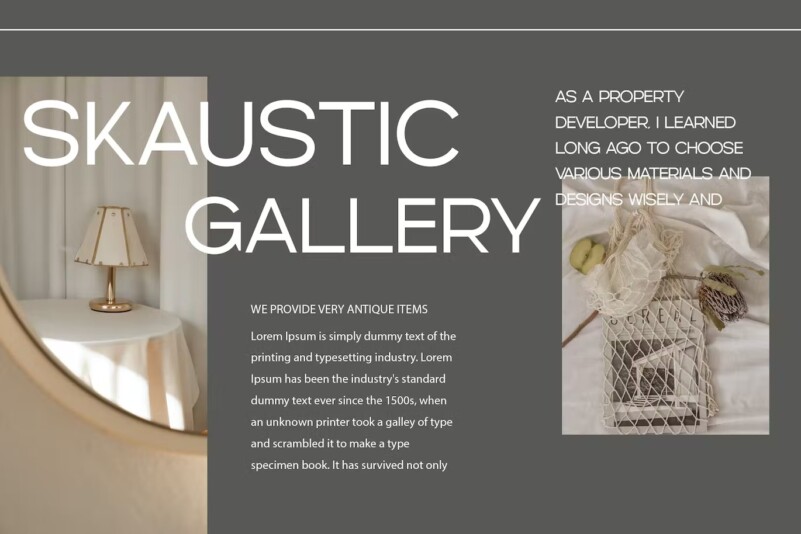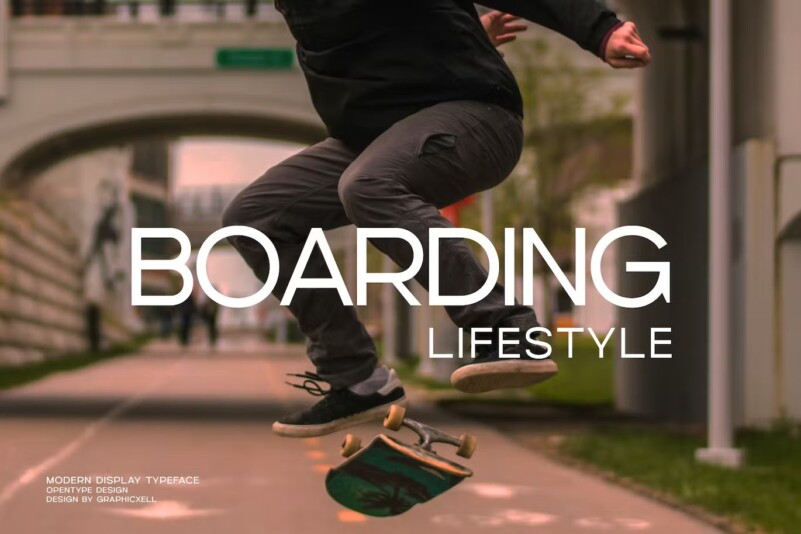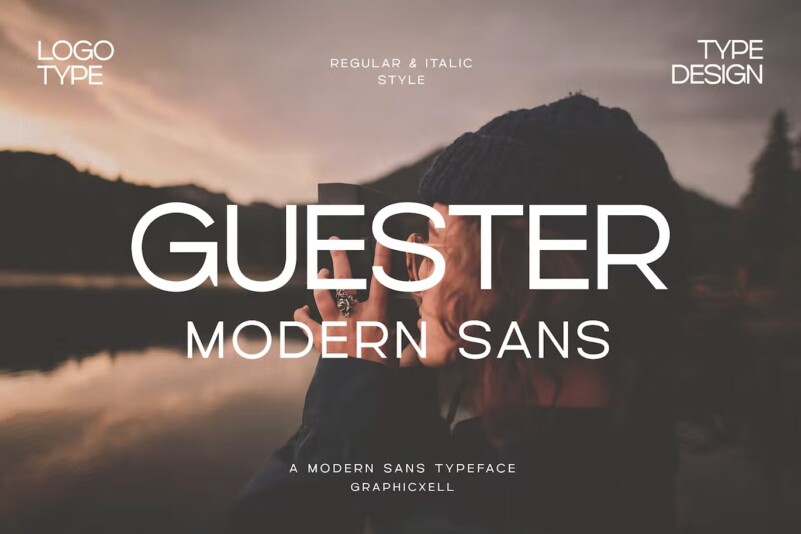
Guester Sans Font Typeface
Guest Sans Font Typeface inspired by the famous minimalist logo perfect for the purposes of designing templates, brochures, videos, advertising branding, logos, invitation, layout design, elegant crafting, beauty design and more.